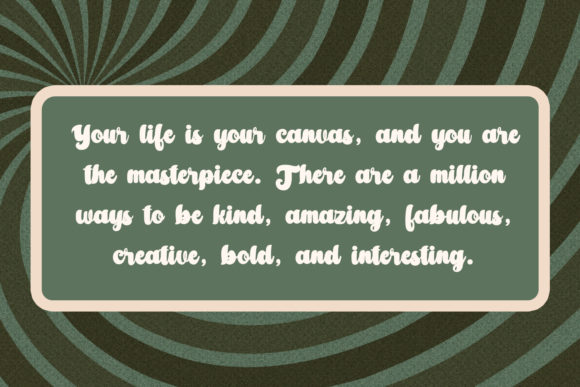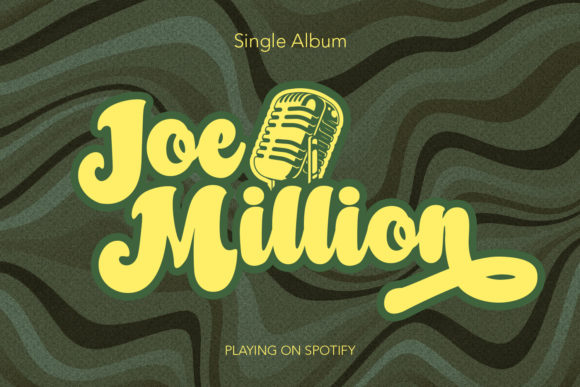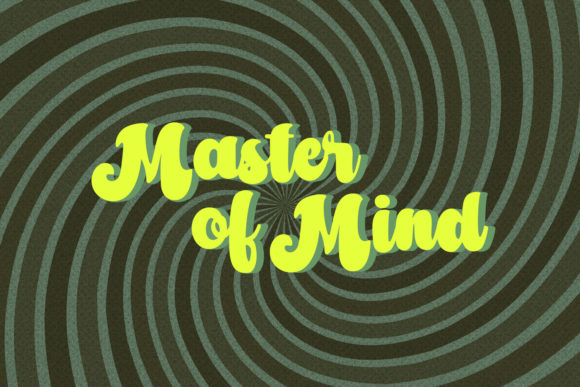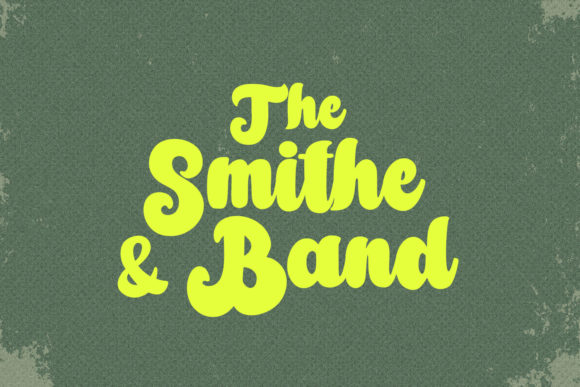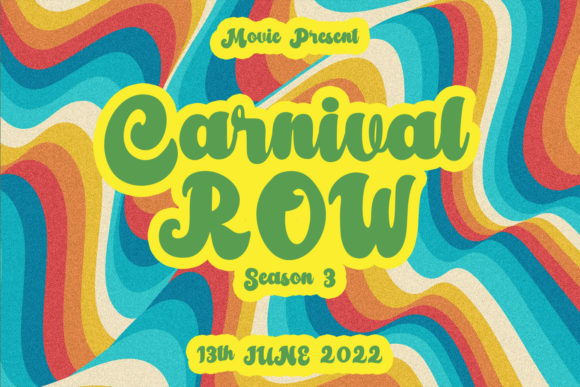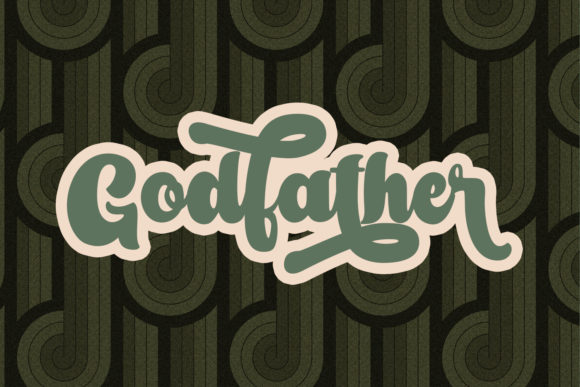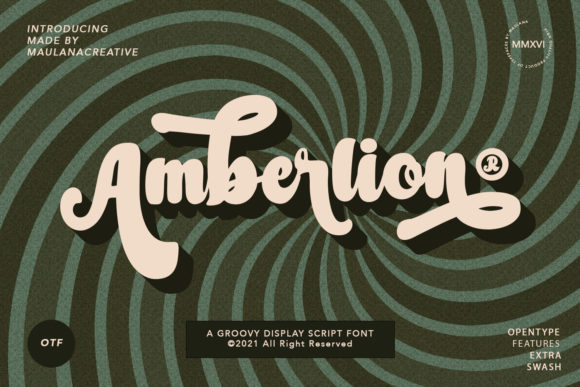
Introducing Amberlion Script Font: Add a Groovy Touch to Your Designs
Are you looking for a font that can add a stylish and nostalgic touch to your designs? Look no further than Amberlion Script Font. This retro-styled handwritten font is perfect for designers and crafters who want to give their headlines and logotype projects a unique and dynamic look.
What is Amberlion Script Font?
Amberlion Script is a groovy, retro-styled handwritten font that is crafted to give your designs a stylish touch. This font reads as strong, confident, and dynamic, making it perfect for a variety of design projects. With its nostalgic character, Amberlion Script Font is ideal for designers who want to add a touch of vintage flair to their work.
Key Features of Amberlion Script Font
- Groovy and Retro Style: Amberlion Script Font has a unique and stylish retro look that is perfect for designers who want to add a touch of nostalgia to their designs.
- Handwritten Style: This font has a handwritten style that gives it a personal and dynamic touch.
- Strong and Confident: Amberlion Script Font reads as strong and confident, making it perfect for headlines and logotype projects.
- Nostalgic Character: This font has a nostalgic character that can add a touch of vintage flair to your designs.
Uses of Amberlion Script Font
Amberlion Script Font is a versatile font that can be used in a variety of design projects, including:
- Headlines and Logotypes: This font is perfect for headlines and logotypes, where you want to make a bold and stylish statement.
- Branding and Packaging: Amberlion Script Font can be used in branding and packaging projects, where you want to add a touch of nostalgia and personality to your designs.
- Advertising and Marketing: This font can be used in advertising and marketing projects, where you want to grab the attention of your audience with a stylish and dynamic look.
- Stationery and Invitations: Amberlion Script Font can be used in stationery and invitation projects, where you want to add a touch of elegance and sophistication.
Why Choose Amberlion Script Font?
There are many reasons why you should choose Amberlion Script Font for your design projects. Here are a few:
- Unique and Stylish: This font has a unique and stylish look that can add a touch of personality to your designs.
- Easy to Read: Amberlion Script Font is easy to read, even at small sizes, making it perfect for a variety of design projects.
- Versatile: This font can be used in a variety of design projects, from headlines and logotypes to branding and packaging.
- Nostalgic Character: Amberlion Script Font has a nostalgic character that can add a touch of vintage flair to your designs.
Tips for Using Amberlion Script Font
Here are a few tips for using Amberlion Script Font in your design projects:
- Use it as a Headline Font: Amberlion Script Font is perfect for use as a headline font, where you want to make a bold and stylish statement.
- Pair it with a Sans-Serif Font: This font pairs well with sans-serif fonts, which can add a nice contrast to your designs.
- Experiment with Colors: Amberlion Script Font looks great in a variety of colors, so don’t be afraid to experiment and find the perfect color for your design.
Amberlion Script Font is a unique and stylish font that can add a touch of personality and nostalgia to your designs. With its groovy and retro style, handwritten look, and strong and confident character, this font is perfect for a variety of design projects. Whether you’re a designer or crafter, Amberlion Script Font is a great choice for anyone looking to add a stylish touch to their work.